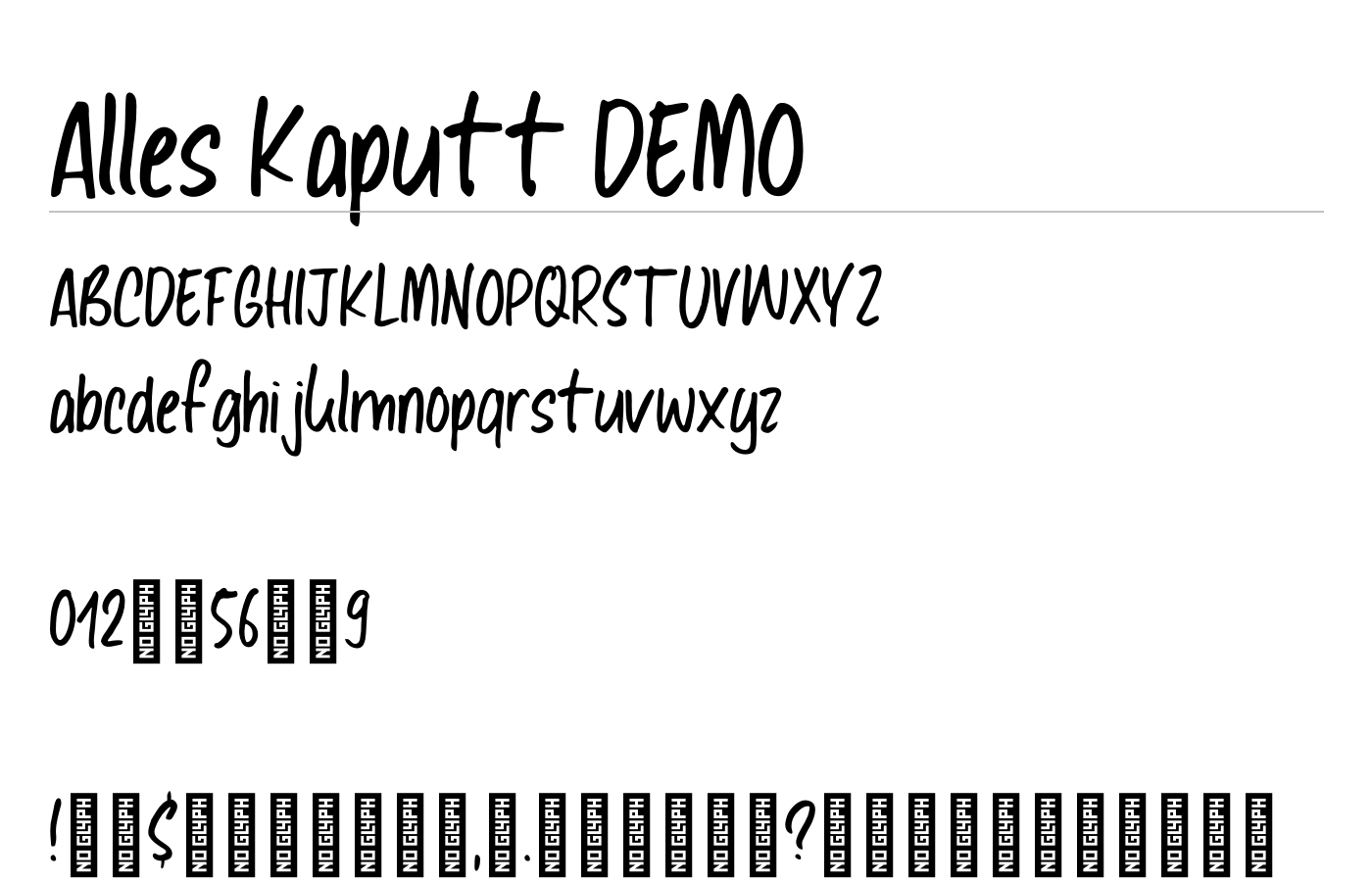
Alles Kaputt DEMO is a playful, casual handwritten sans serif font characterized by its tall, narrow letterforms and uneven stroke widths that give it an energetic and informal feel. It features both uppercase and lowercase letters with simple, organic shapes, making it ideal for creative, fun, and approachable designs such as posters, branding for lifestyle or artsy products, and informal digital content. This font works well where a relaxed, personal touch is desired, adding friendliness and originality to various design projects.
Alles Kaputt DEMO Font
About Alles Kaputt DEMO Font
| Font family | Alles Kaputt DEMO Font |